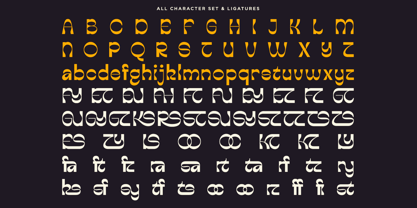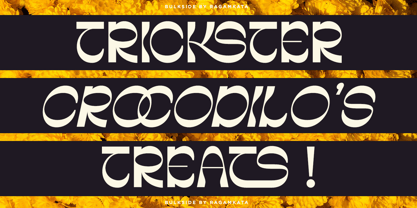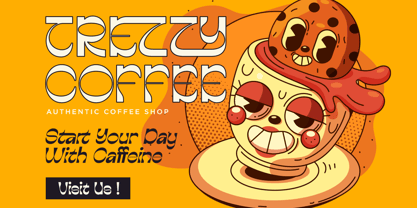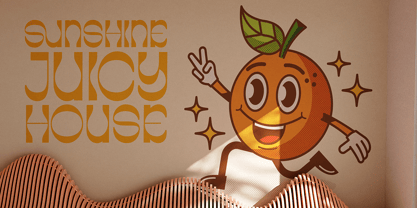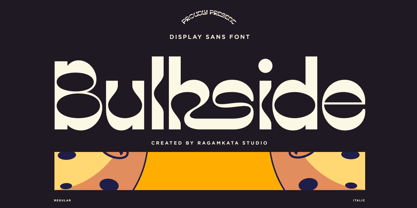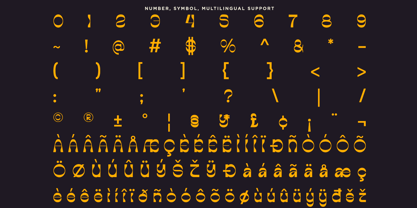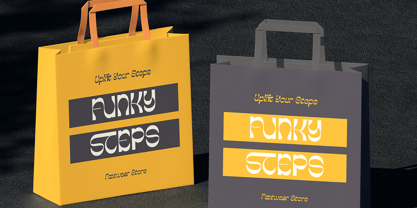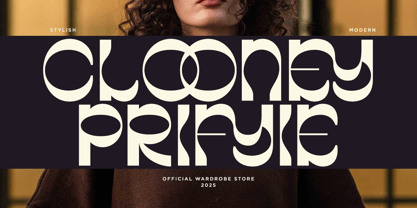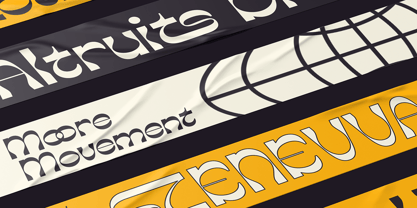
Bulkside
Die Schriftfamilie Bulkside wurde von Yogiswhara Dio Prakoso Riadi entworfen und von RagamKata veröffentlicht. Bulkside enthält 2 Stile und Familienpaketoptionen. Mehr über diese Familie
Bulkside is display sans font stands out as a unique option, ideal for both contemporary and retro design styles. This flexible display font integrates effortlessly into any project—from branding and print templates to logos—making it a reliable choice for designers aiming to elevate their creative work. Whats Included : - Bulkside Regular - Bulkside Italic - Stylish Ligatures ( Uppercase & Lowercase Available ) - Uppercase, Lowercase Character - Number, Symbol, Multilingual Support Thanks, Have a wonderful day Ragamkata Studio